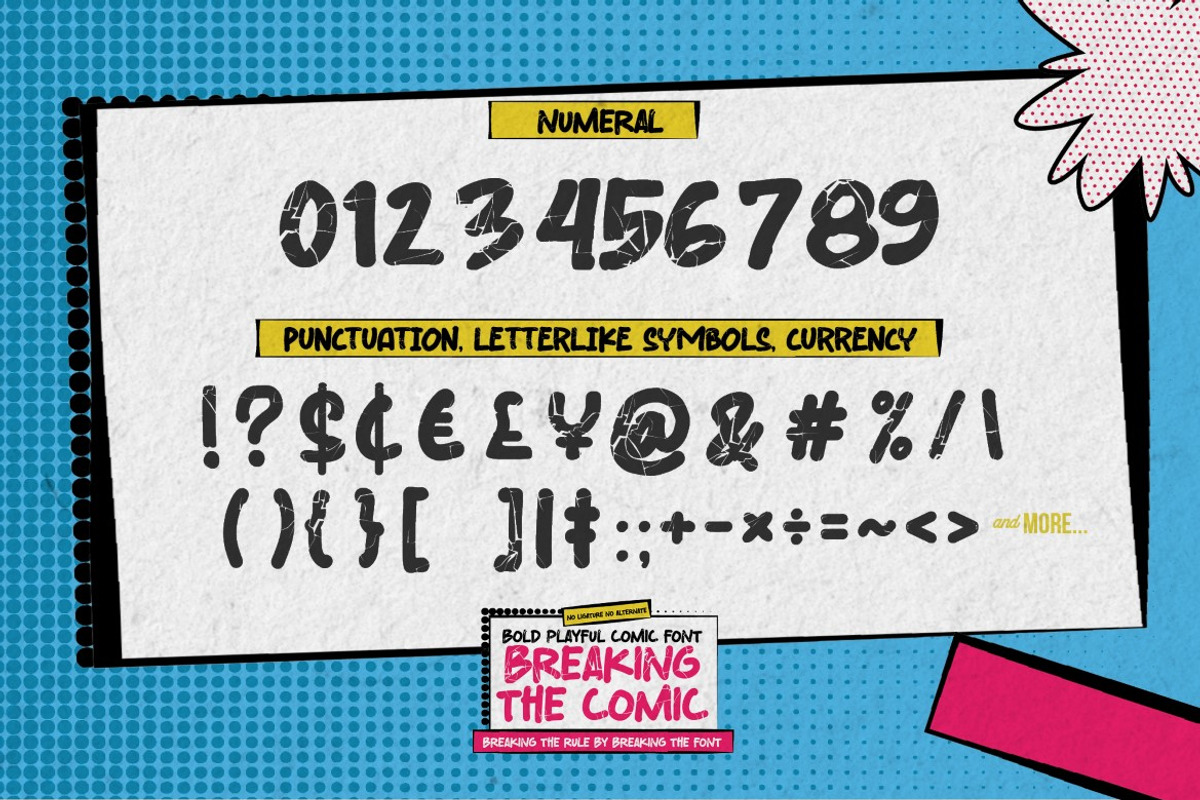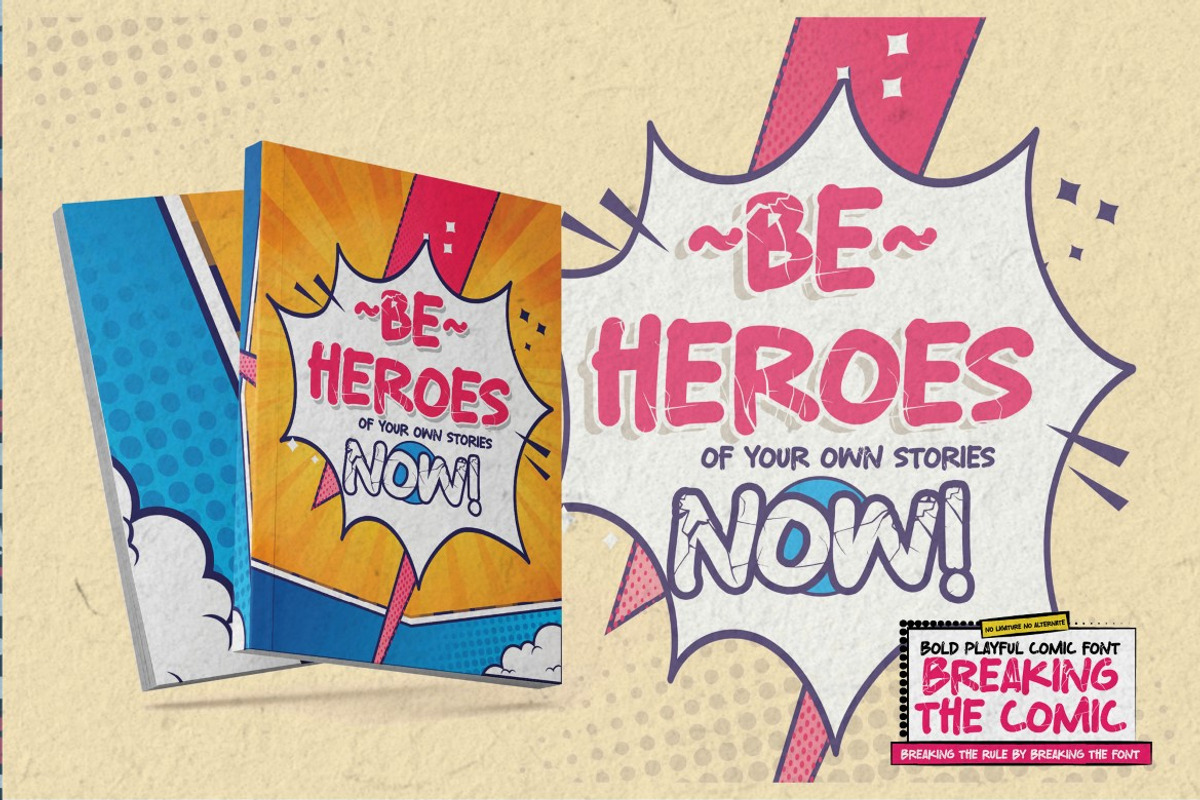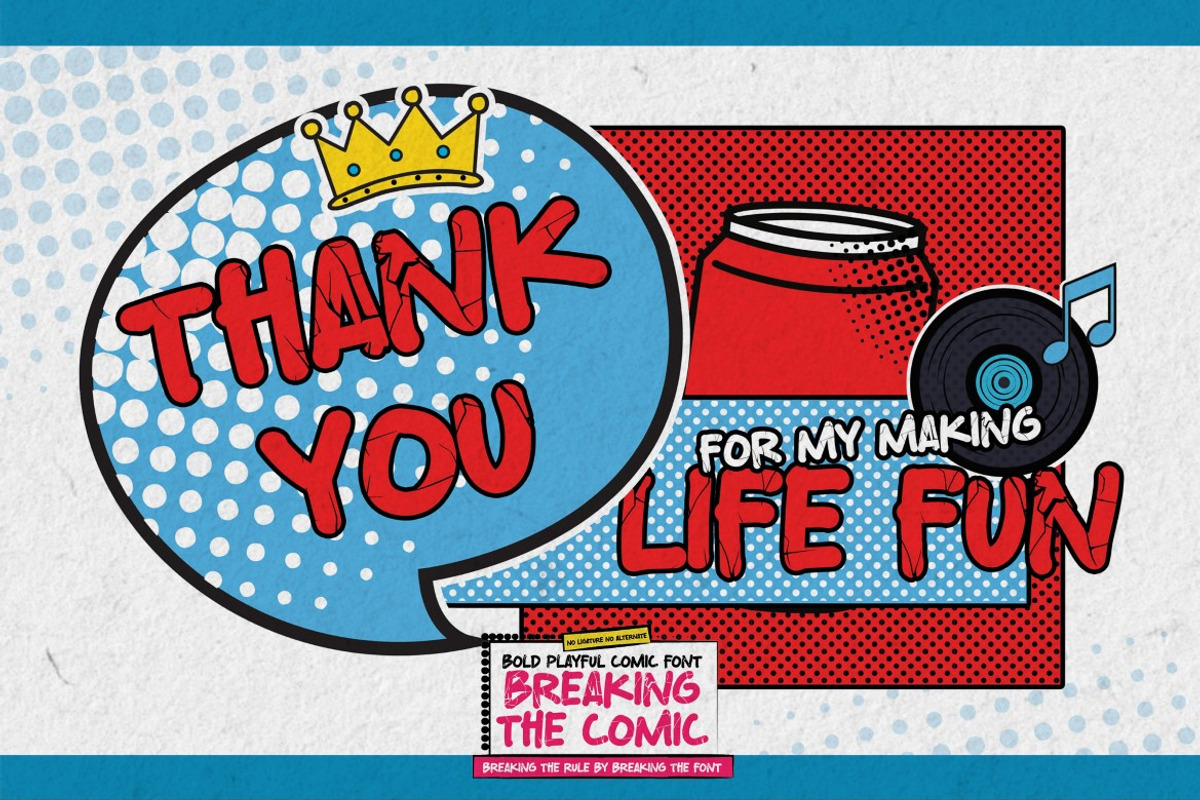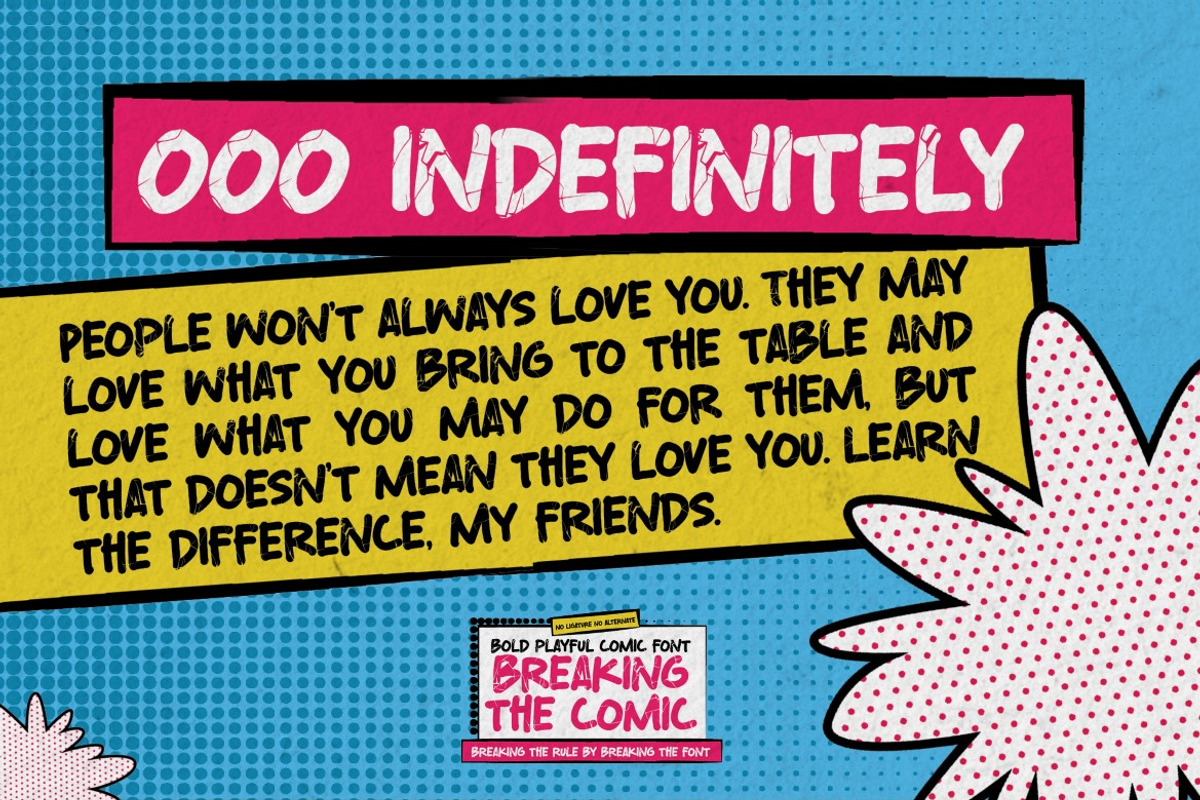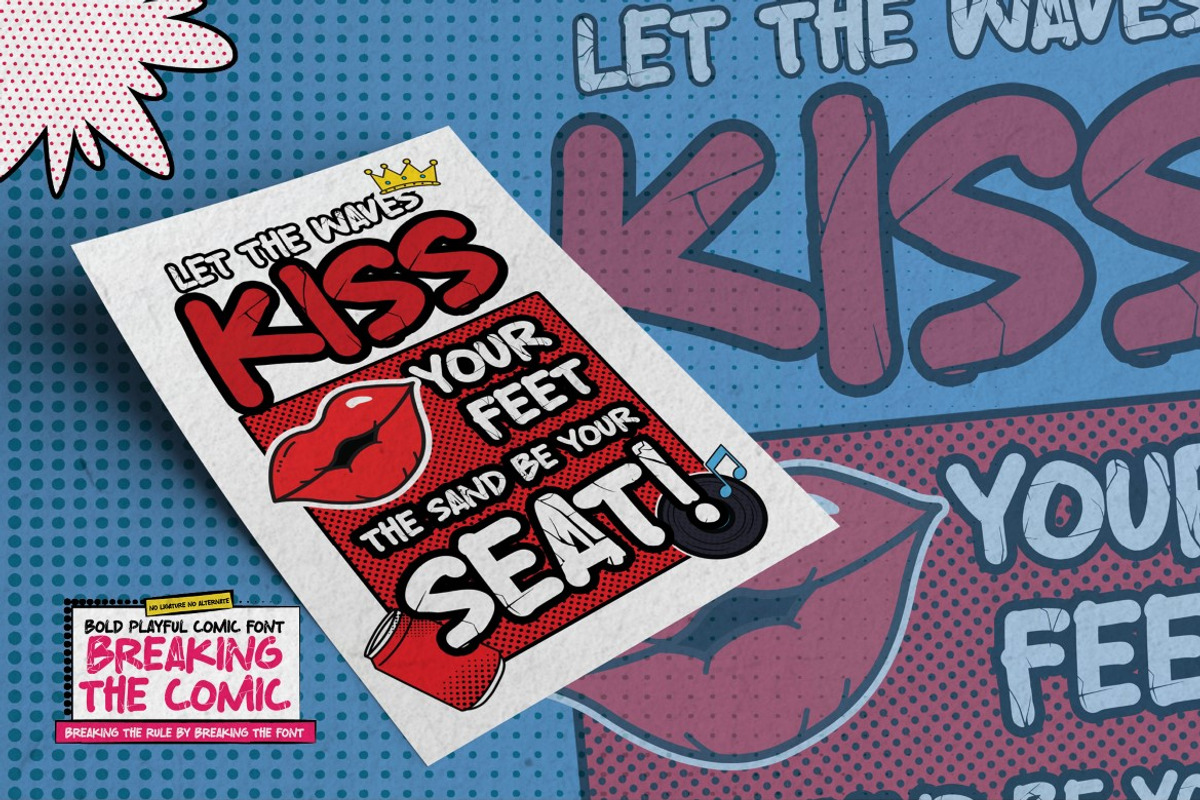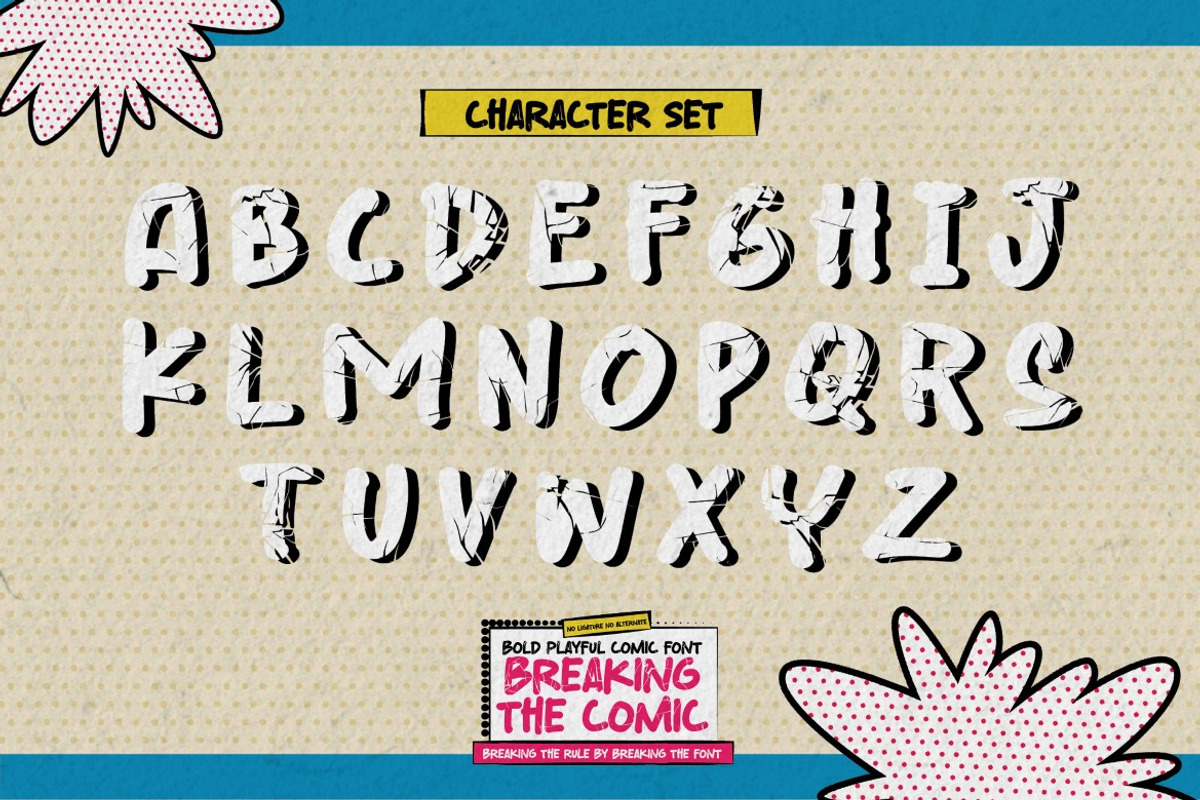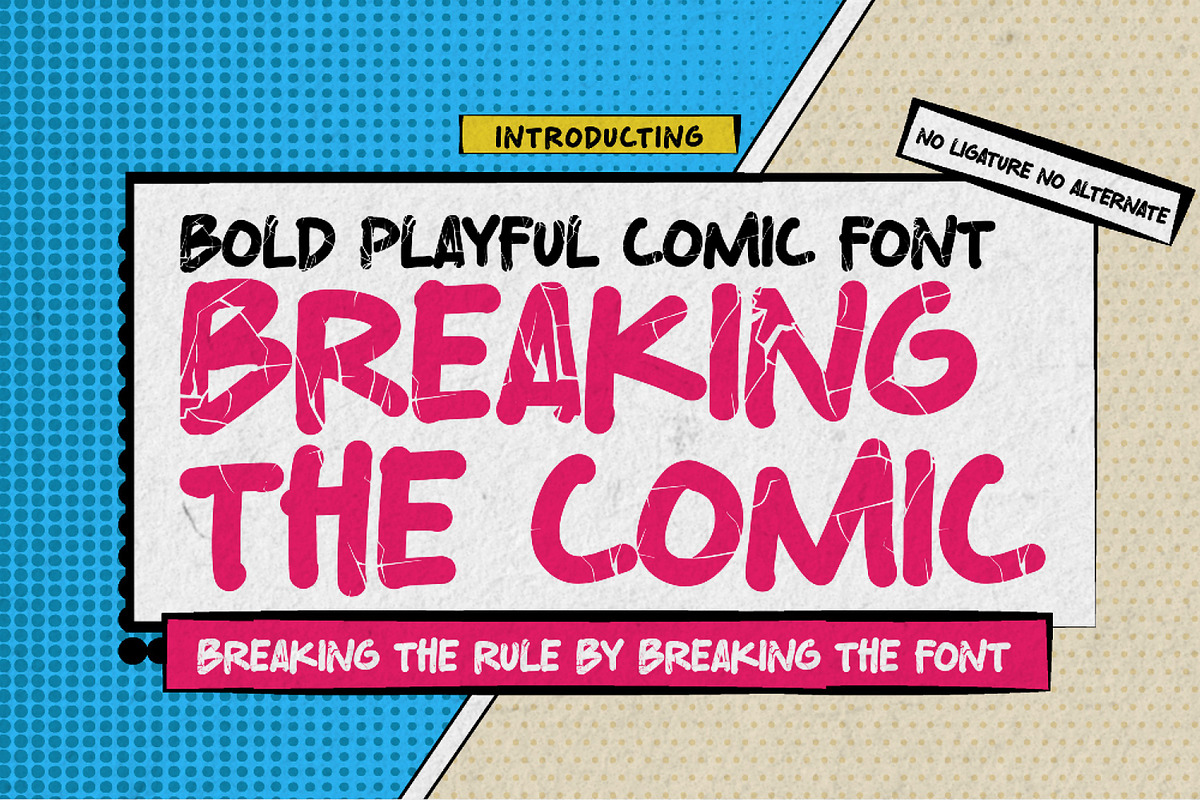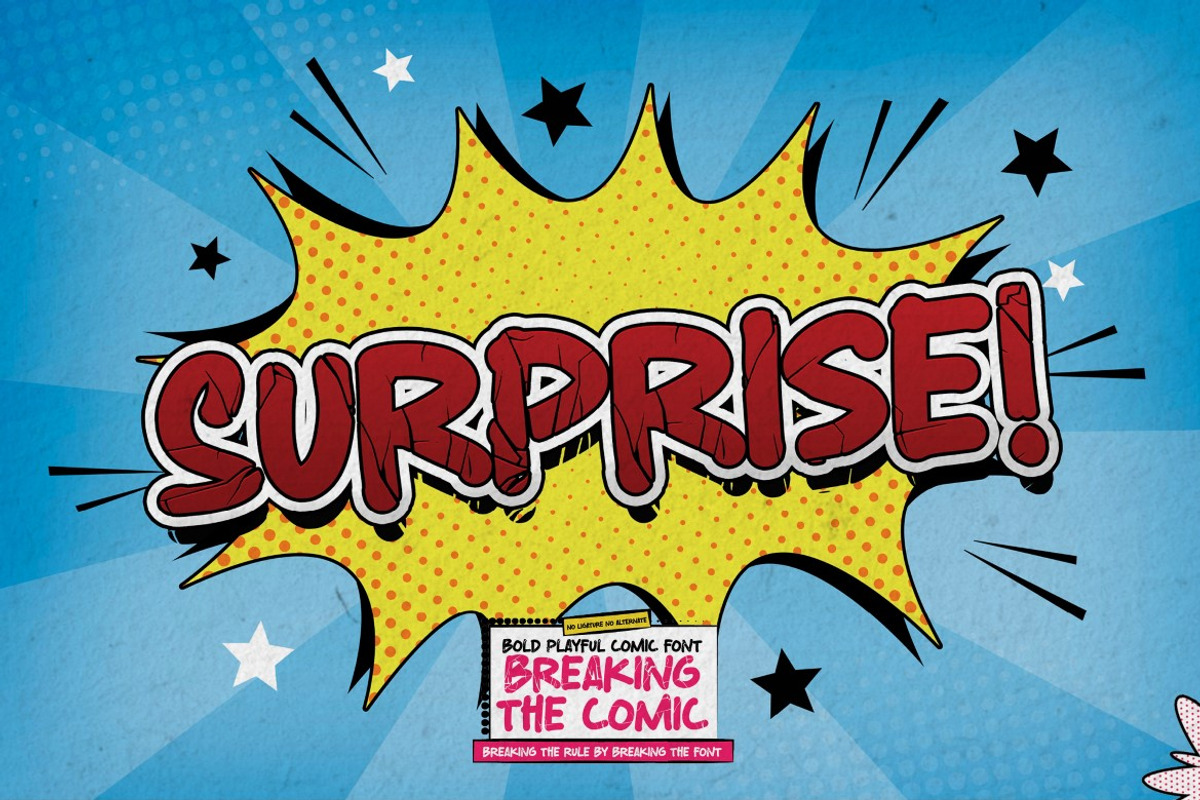
Breaking The Comic - Bold Playful
Breaking The Comic is a Cartoon Display Font it will make your designs look modern, unique and fun. It’s perfect for labels, quotes, posters, DIY projects, branding, packaging, greeting cards, websites, photography overlays, signs, window art, scrapbooking, tags and so much more!